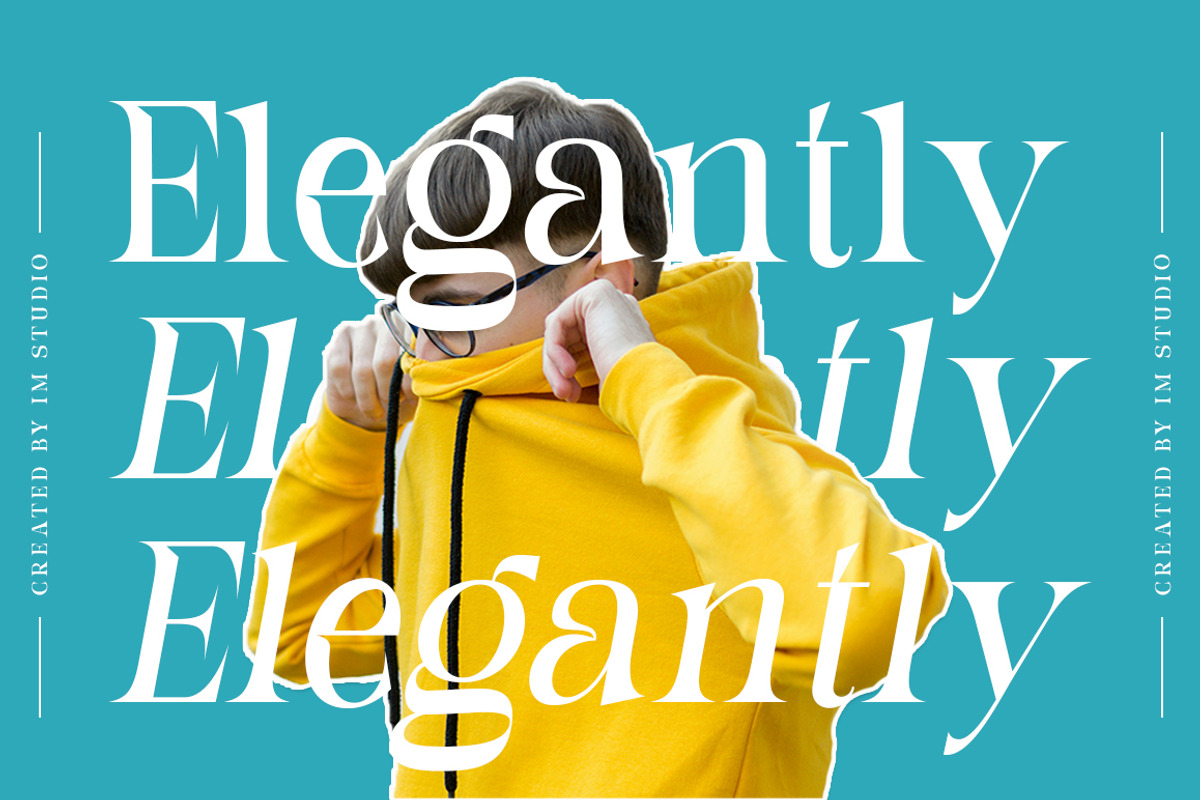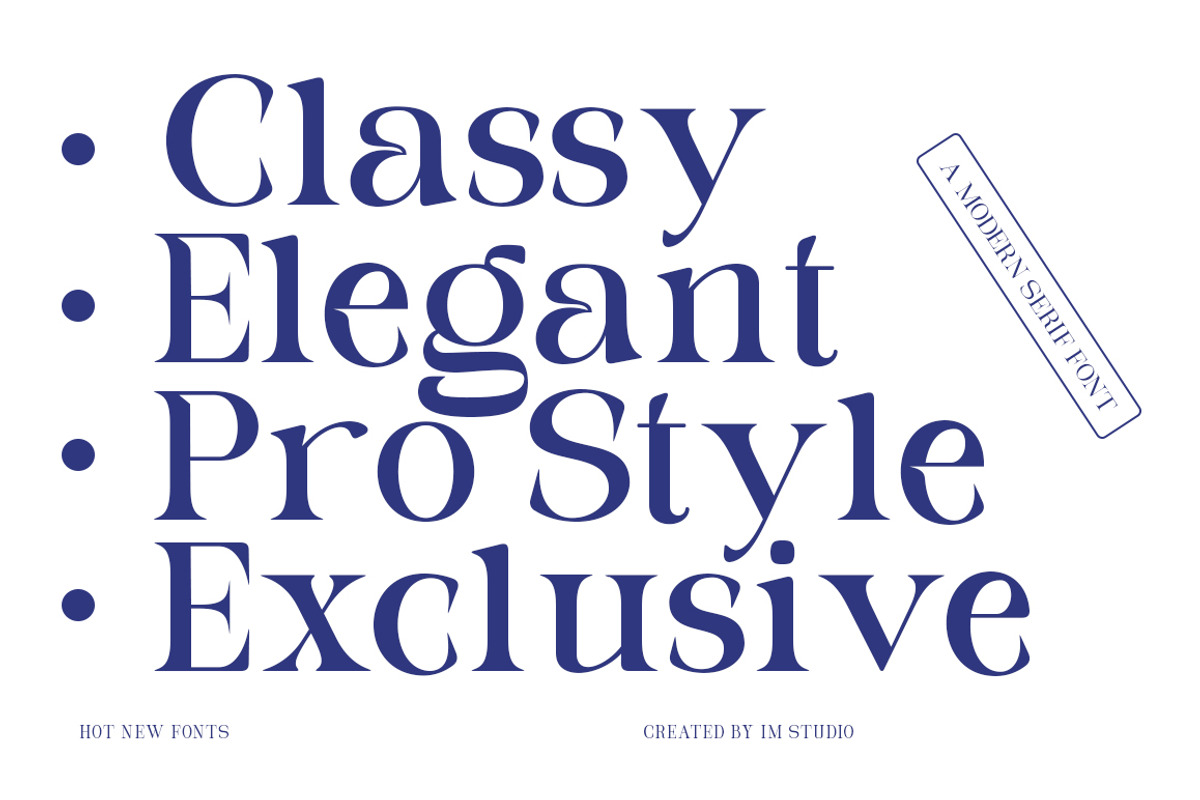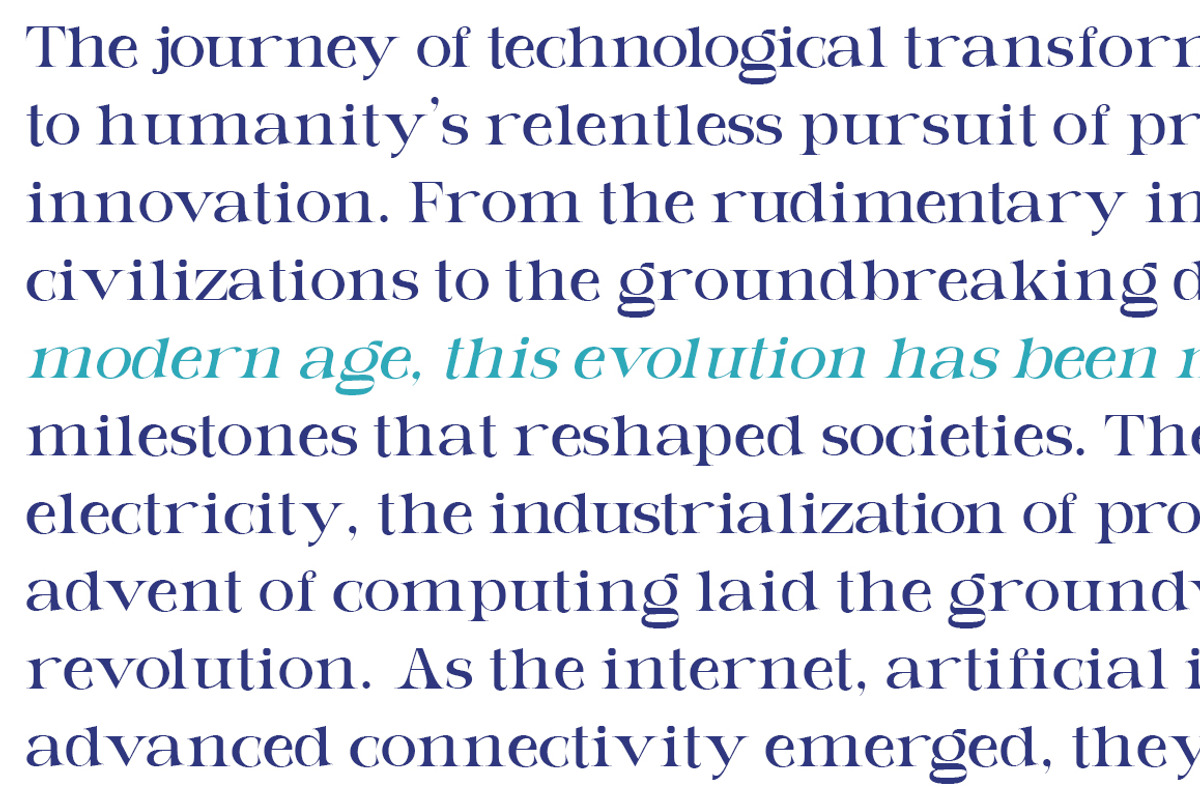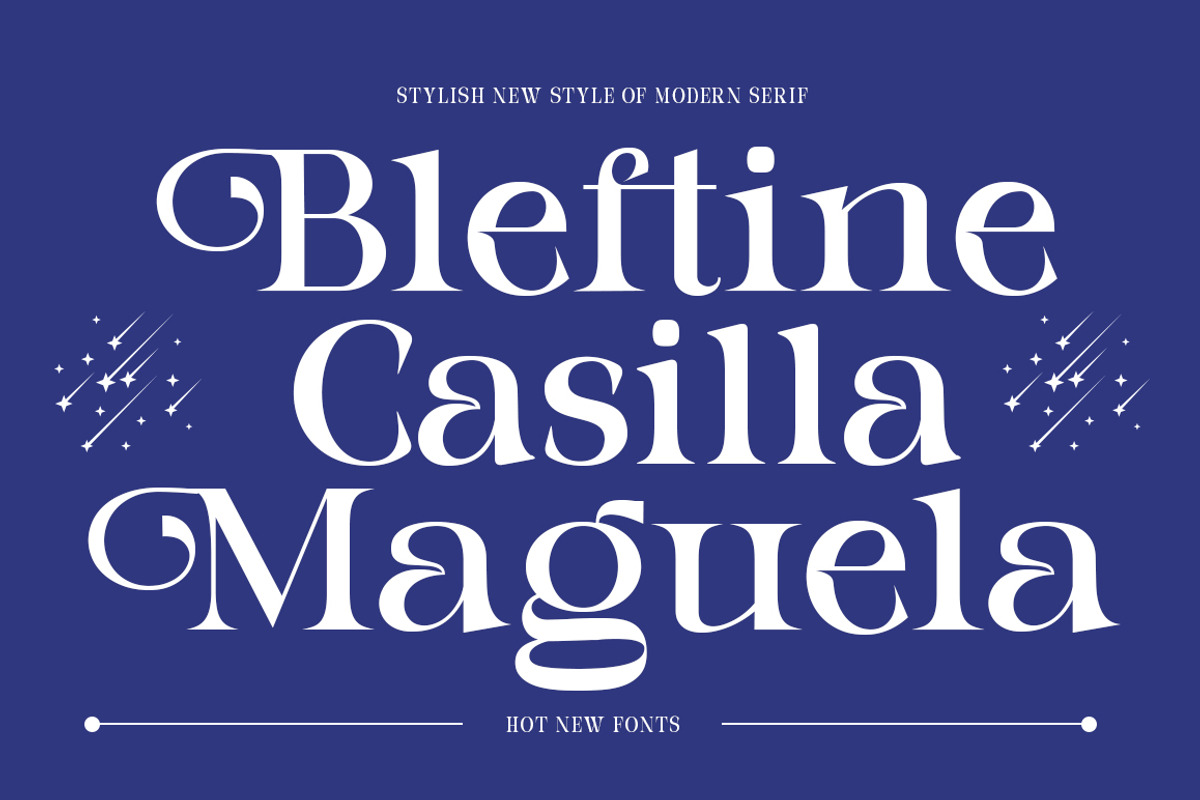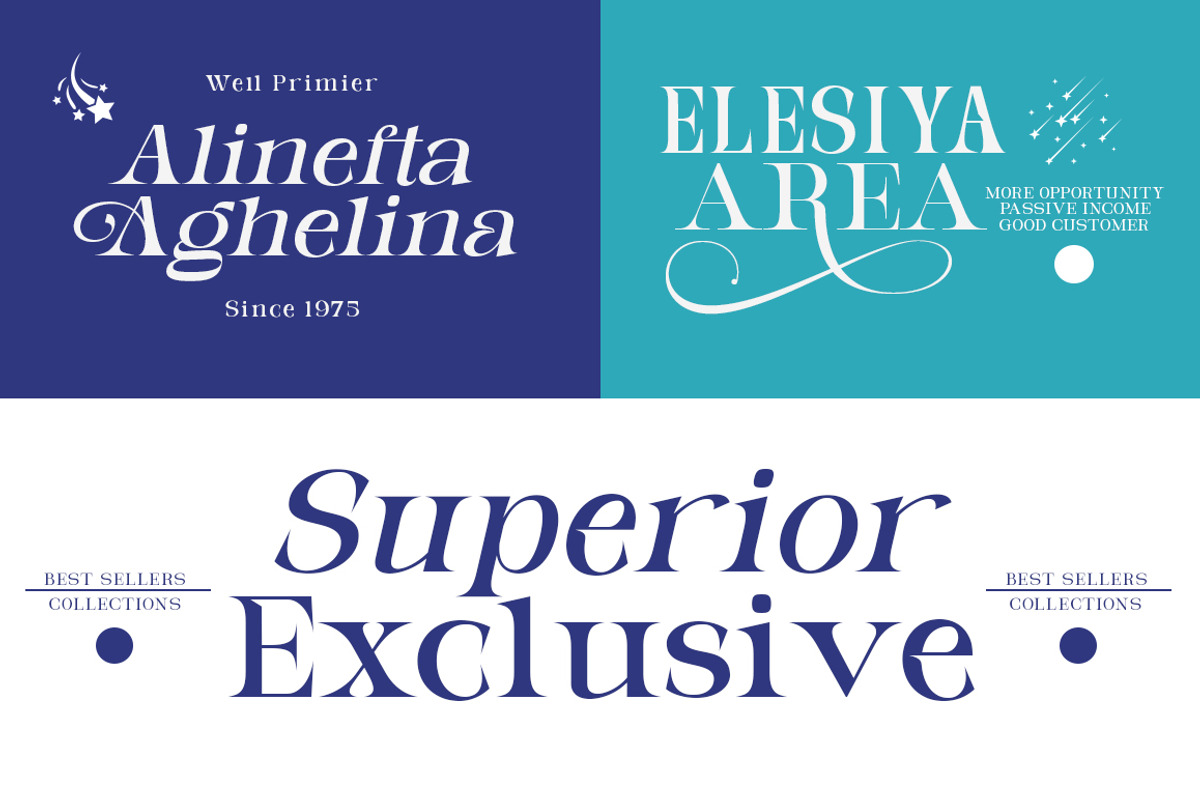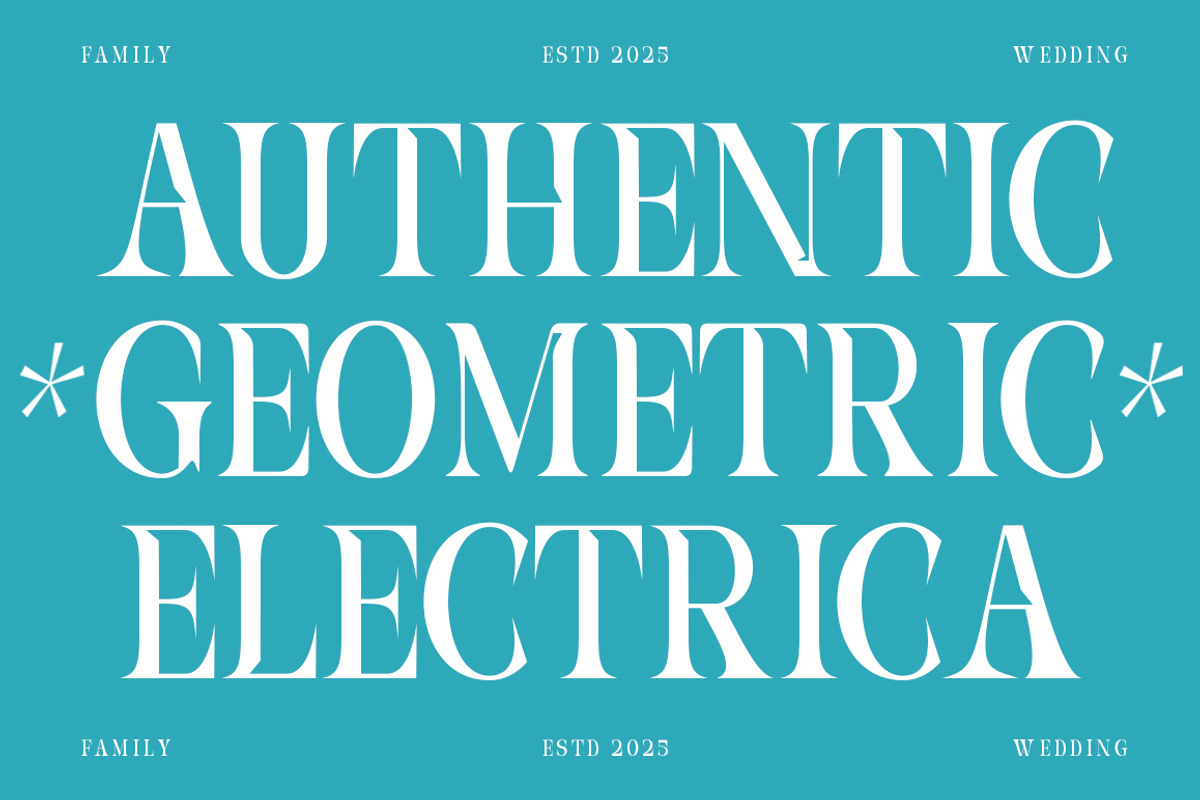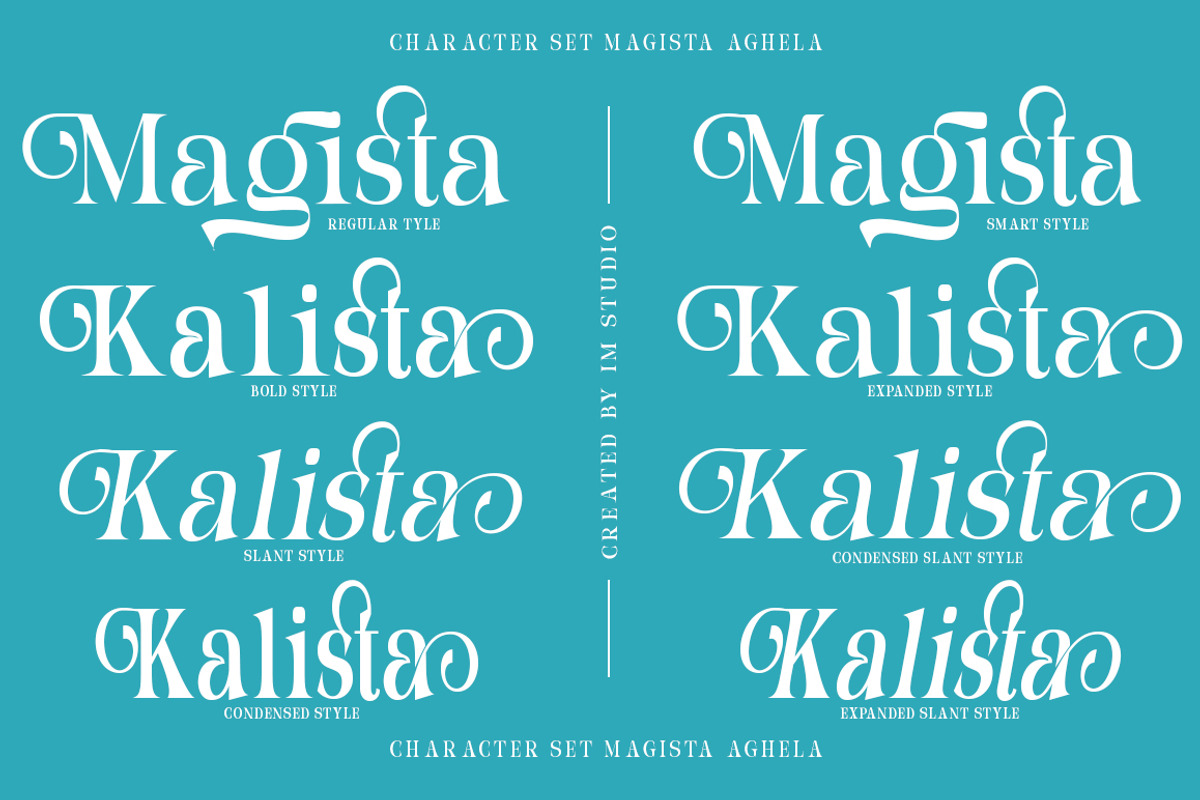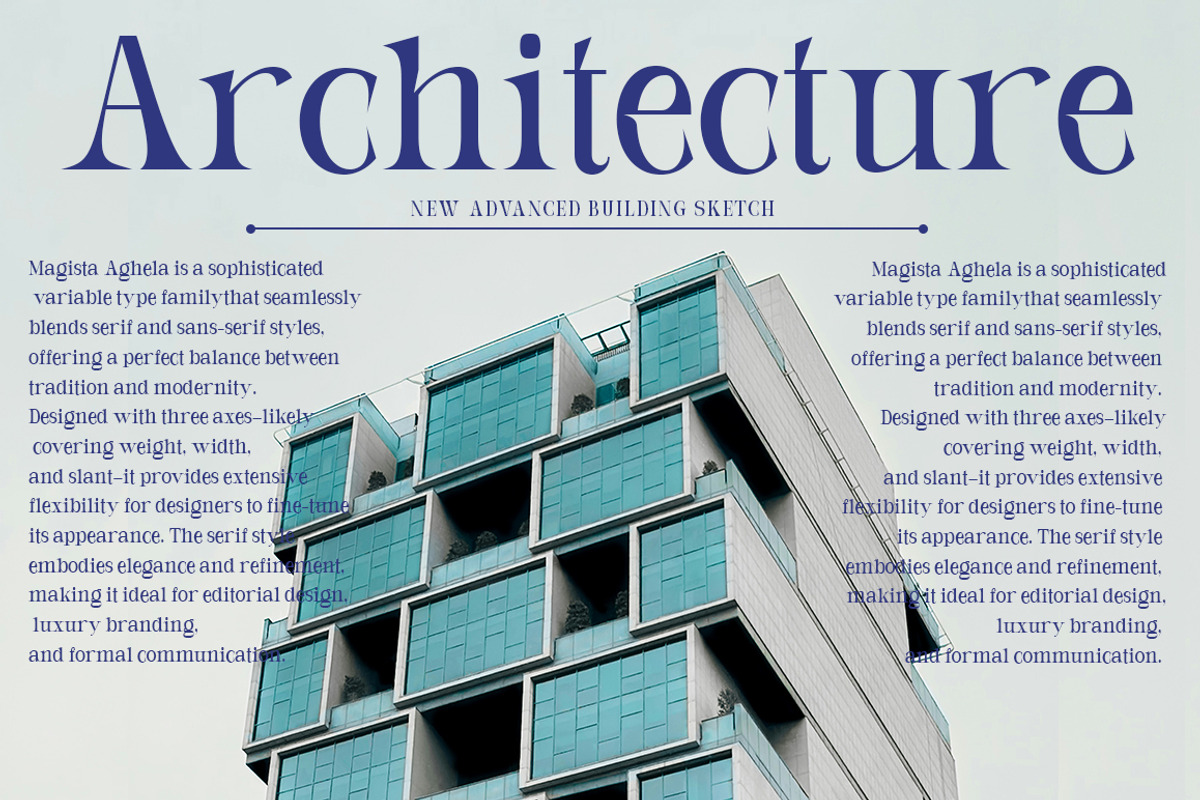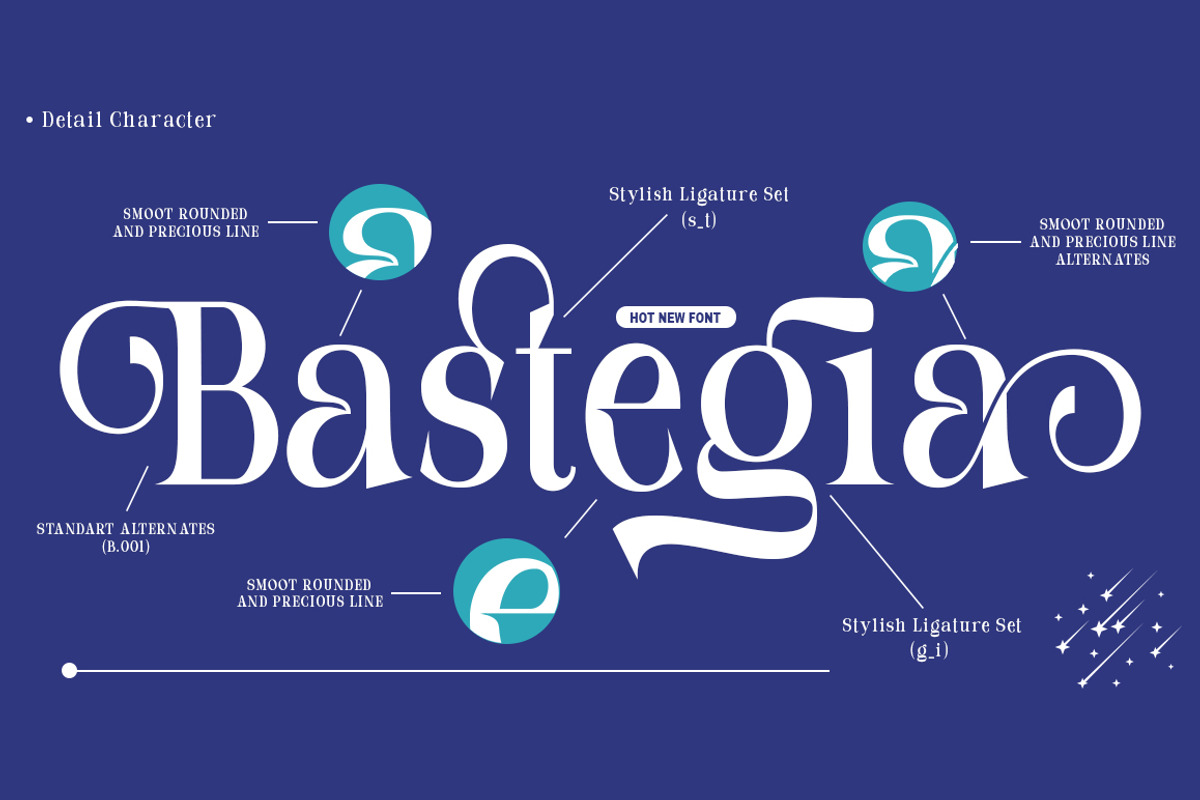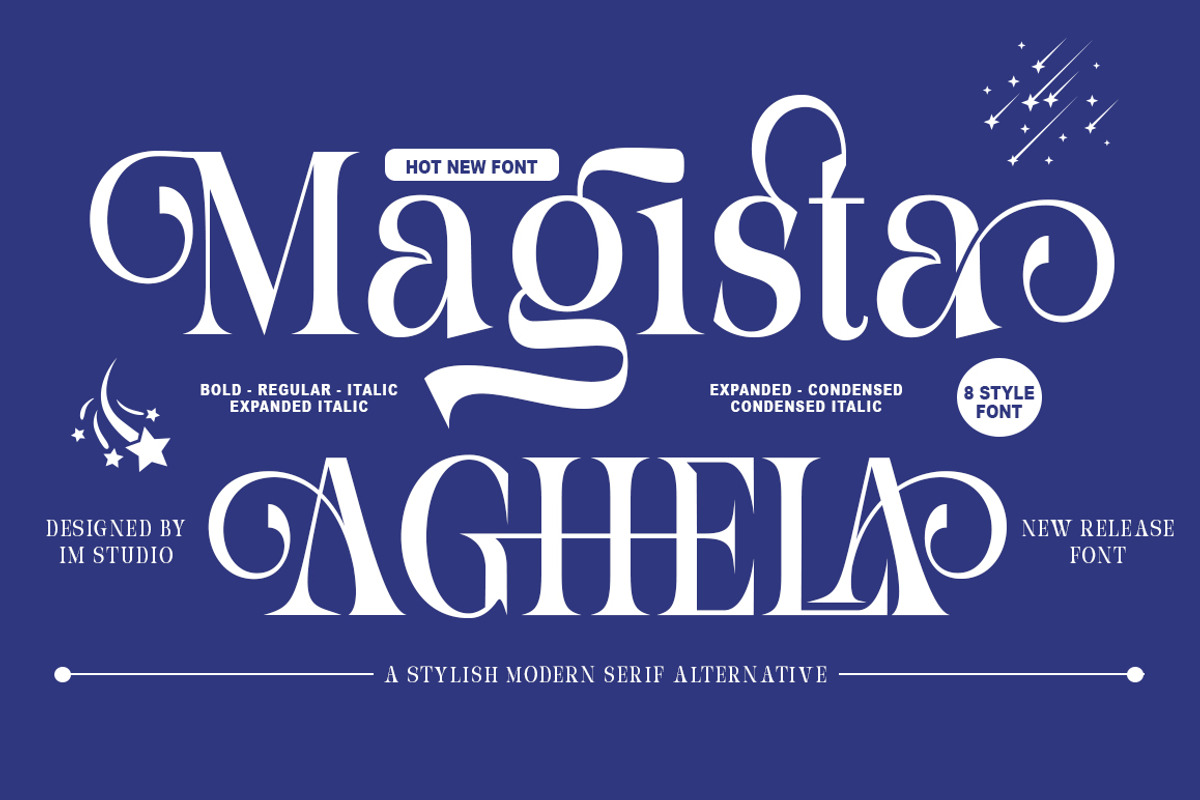
Magista Aghela (8 Style Font)
Magista Aghela is a meticulously crafted serif typeface family that exudes order and simplicity while exuding a bold and strong personality. Designed for readability and versatility, its proportional width, flat peaks, closed openings, and straight-cut stroke ends enhance its contemporary appeal.
Raela includes 8 weights. OpenType features include Style Alternates, figure variations (fractions, tabular lines, numerators, denominators), and extensive Latin language support.
This font was created to provide a clean, modern, and versatile option for designers, marketers, and creatives. Whether you’re working on branding, web design, packaging, or editorial layouts, this top-performing font offers exceptional readability and aesthetic appeal. From bold and impactful to sleek and minimalist, find the font that elevates your creative projects and keeps your designs on trend.